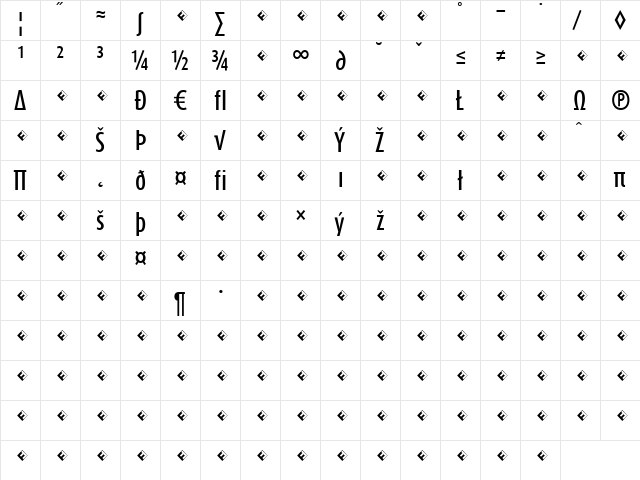
DaxCompact-MediumExpert Regular Font Preview
DaxCompact-MediumExpert Regular
DaxCompact-MediumExpert Regular Font Details
| Foundry | Hans Reichel, published by FontShop International for the FontFont library |
Design Context for DaxCompact-MediumExpert Typeface
DaxCompact-MediumExpert is a composed and adaptable typeface that performs quietly and consistently across a wide range of design contexts. The condensed width makes it efficient for tight spaces without sacrificing legibility.